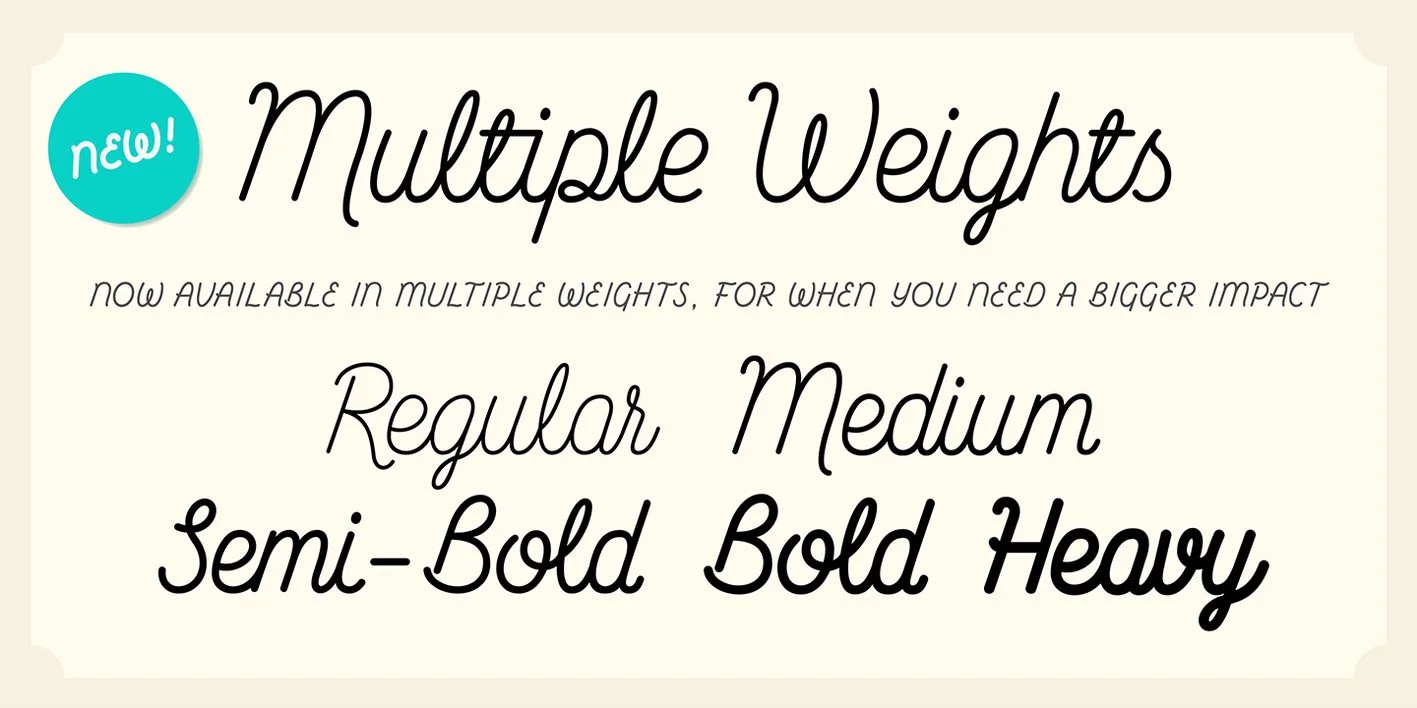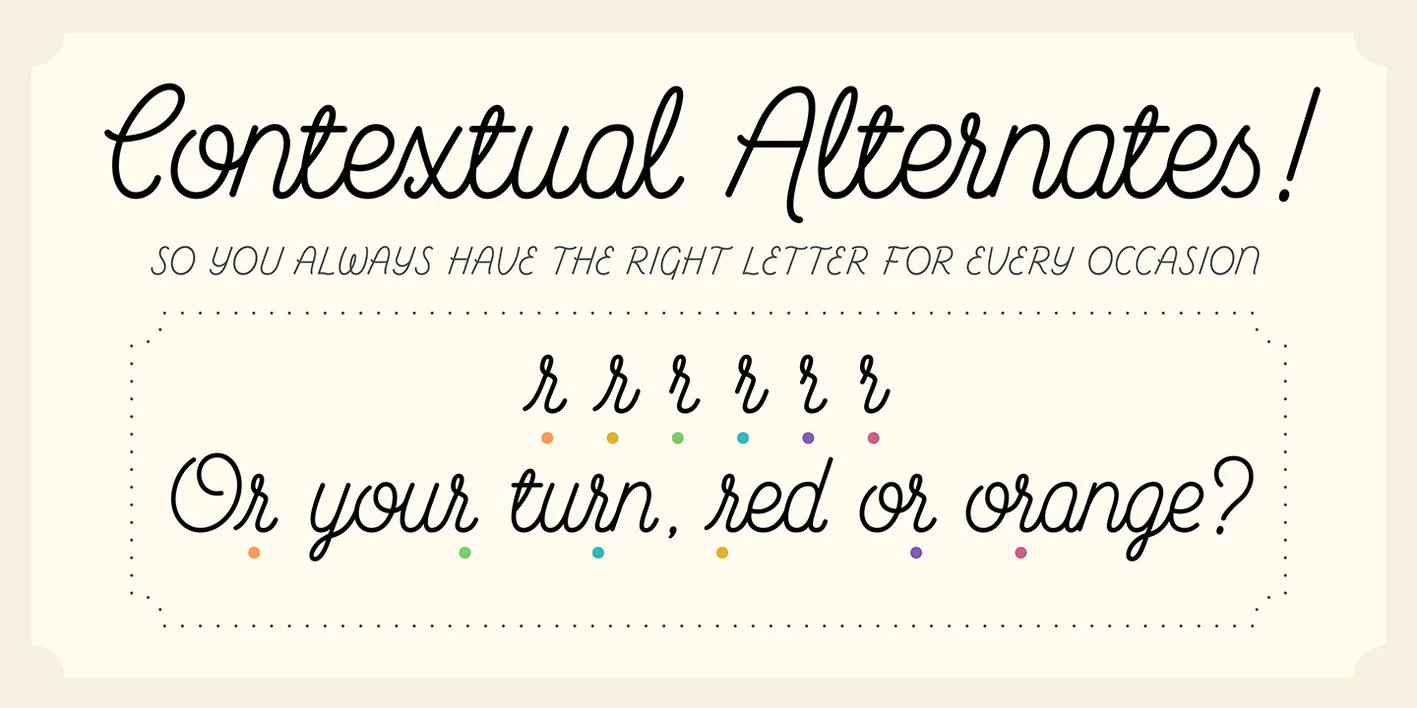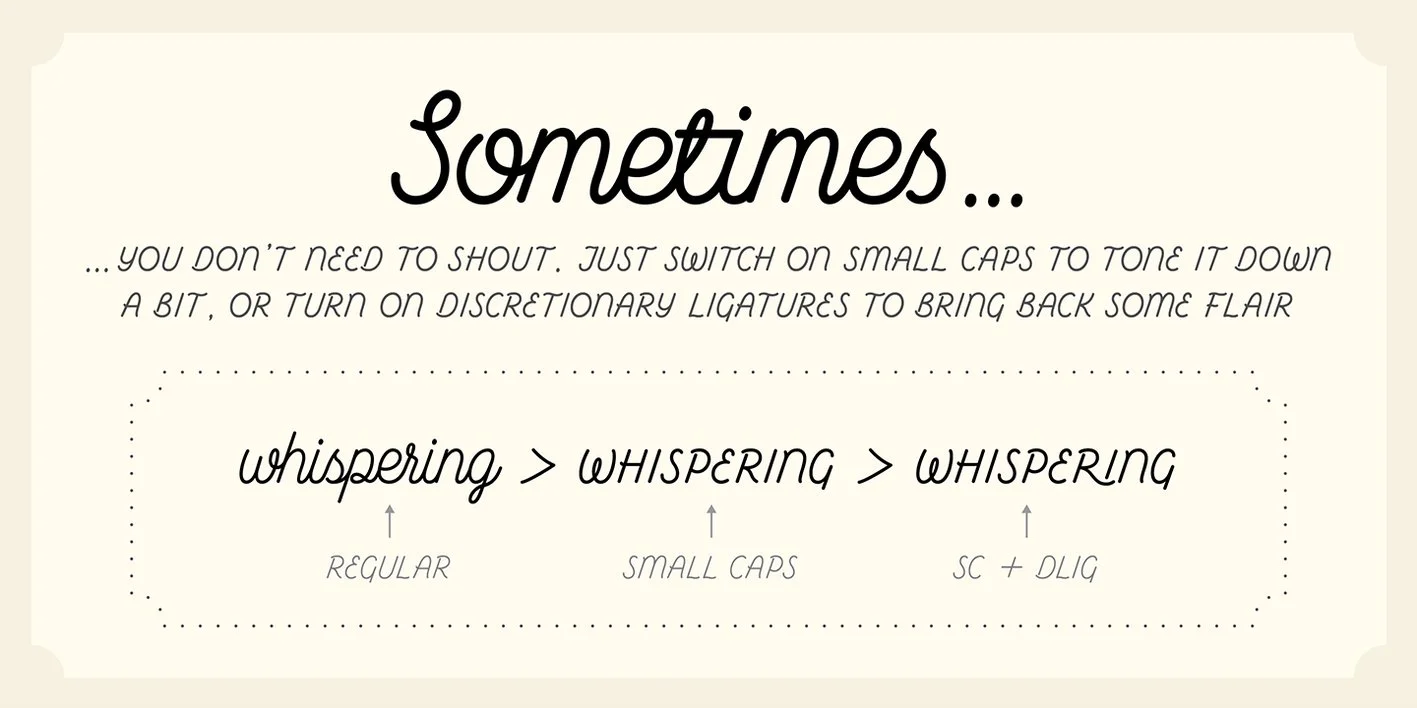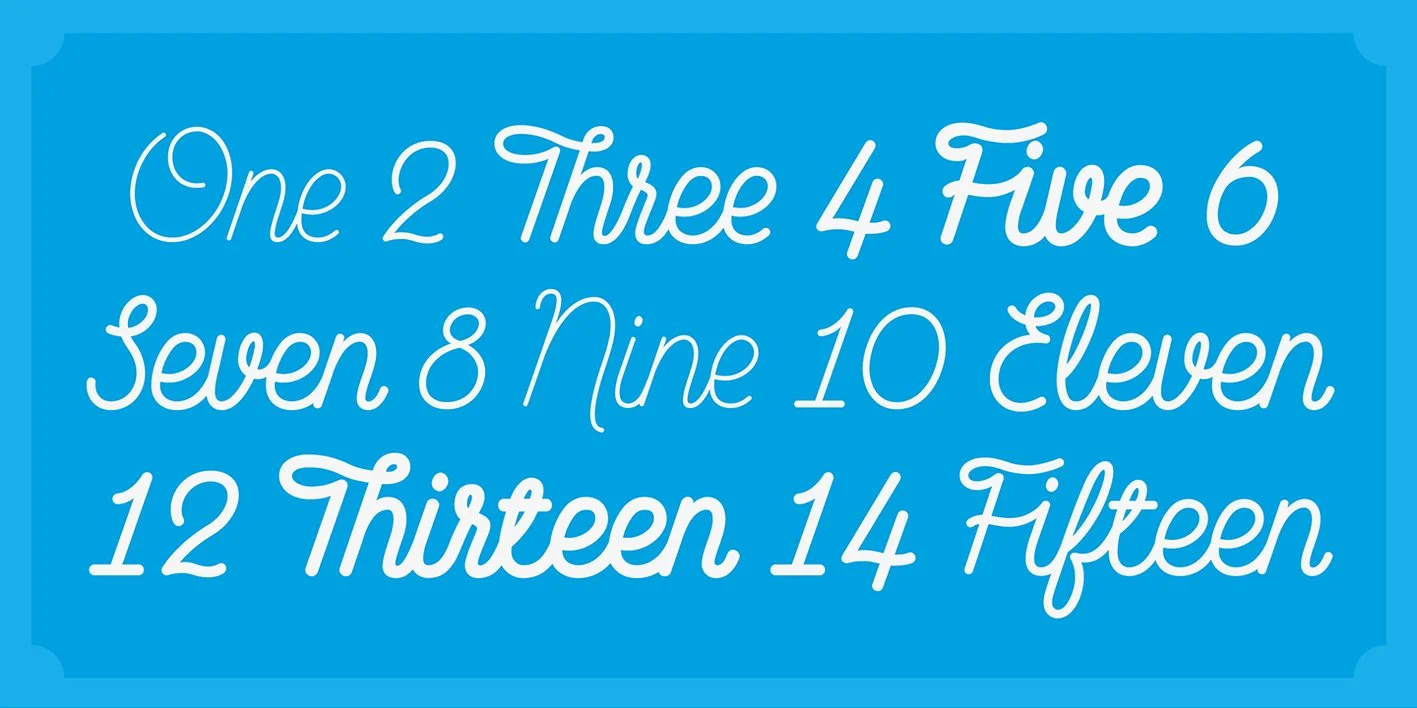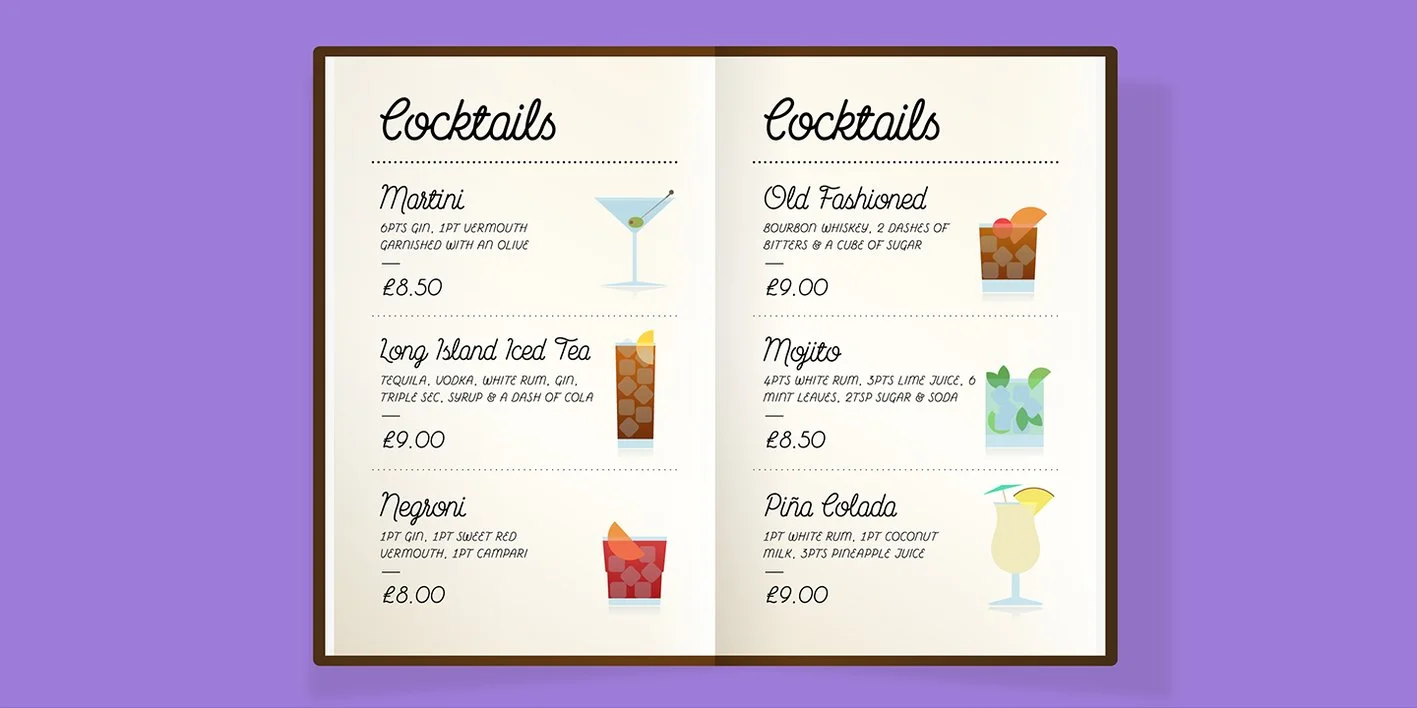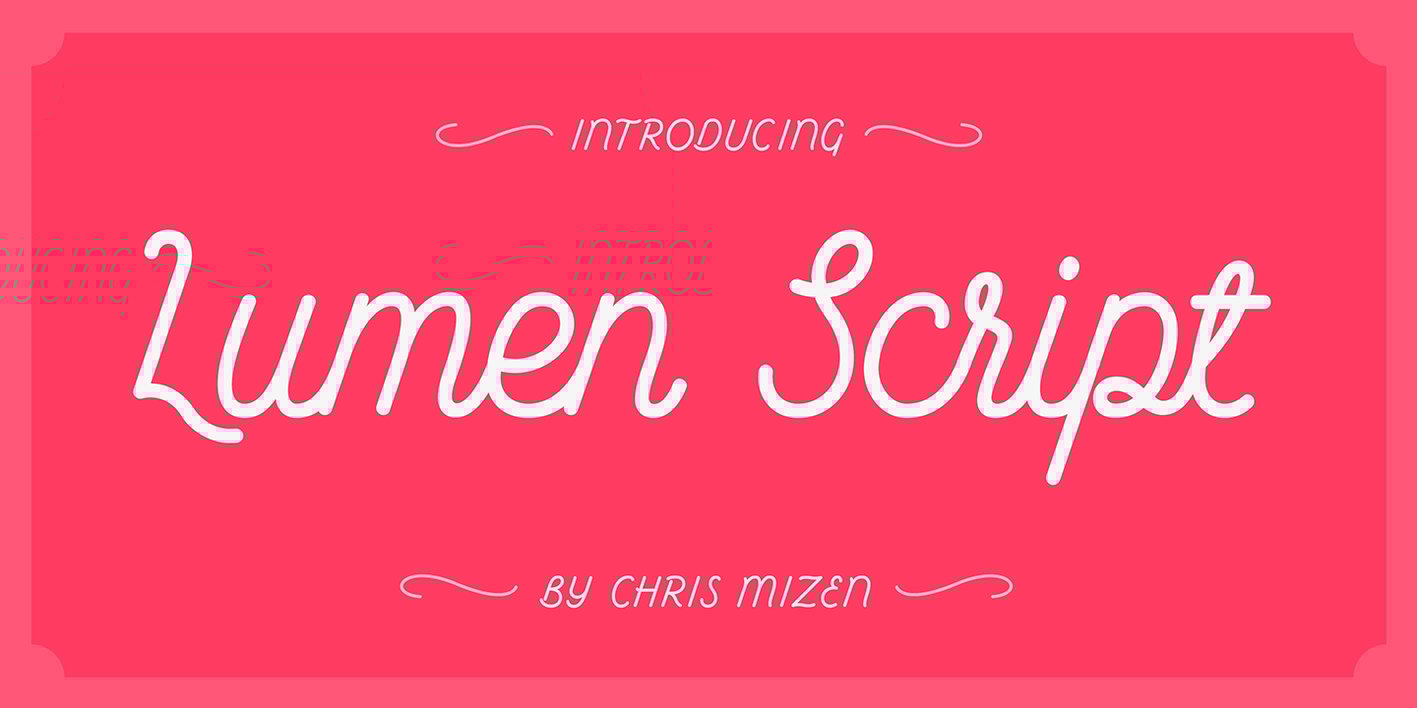
Lumen Script Font
Typography shapes perception at a subconscious level. Lumen Script leverages distinctive character without sacrificing readability to make every composition feel considered. The typeface brings an elegant, calligraphic sensibility to a broad range of creative disciplines, with strong typographic hierarchy support that holds up whether the work is print-first or screen-first.
In practice, Lumen Script proves particularly effective for annual reports, product labels, luxury stationery, greeting cards, wedding invitations. Designers reaching for it find that the type decisions feel resolved rather than laboured — a useful quality when client timelines are tight.
The range of applications extends to boutique logos, logo design, signage systems, advertising campaigns. That breadth is deliberate: the proportions and spacing were stress-tested across a wide range of mock briefs before the typeface was finalised.
Art directors commissioning type-led campaigns find Lumen Script a reliable choice for projects that demand both personality and restraint. The design avoids the self-conscious quirkiness that dates quickly, settling instead for considered distinctiveness that holds up over time.